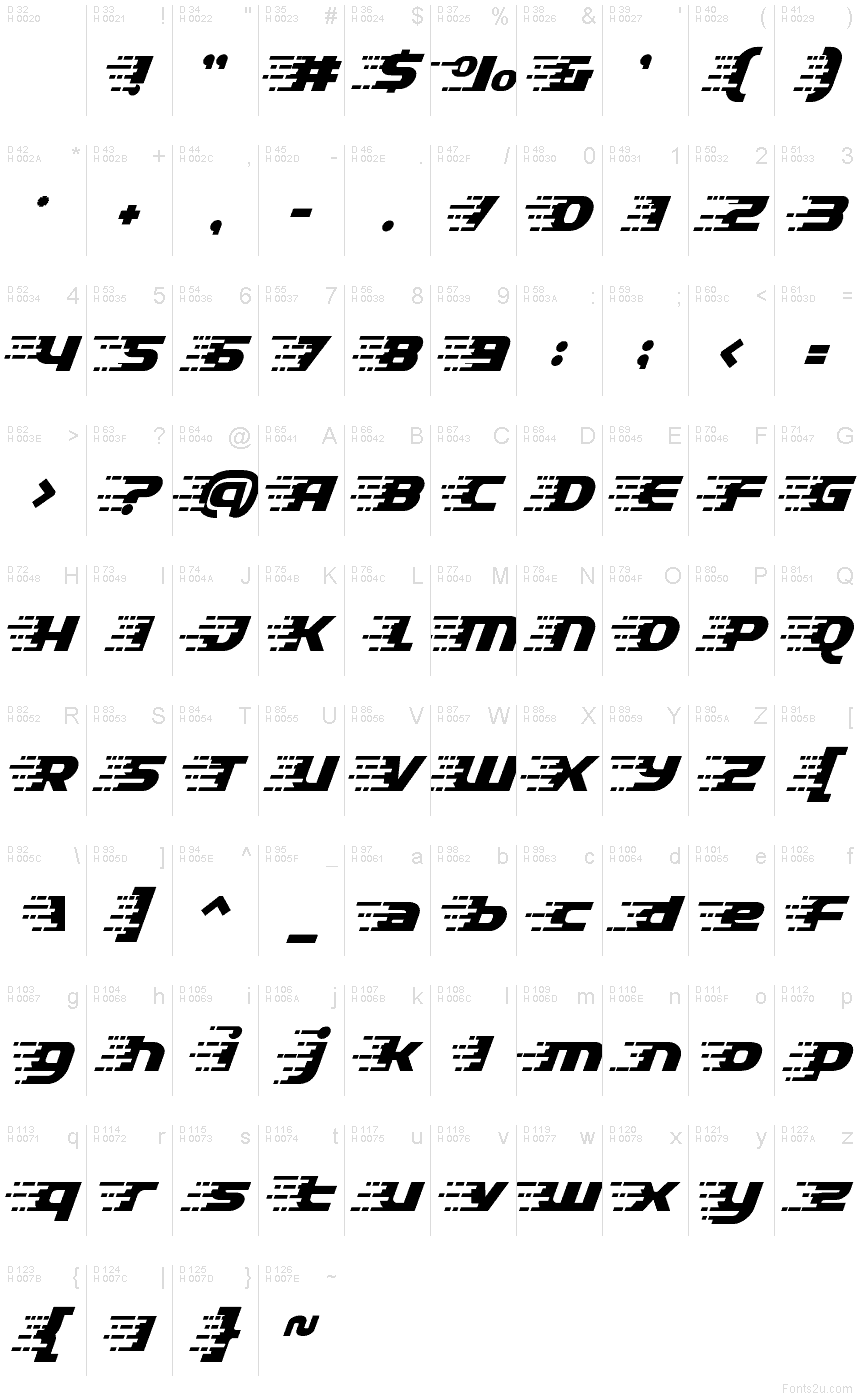
Rapido Racers Six
Rapido Racers Six font by PutraCetol Studio is a futuristic mechanical display typeface style with an expanded width. Enjoy bold geometric shapes in each letter which instantly showcase a technological aesthetic and an association with racing and high speed. These elements all arise beautifully thanks to the influence of digital design.